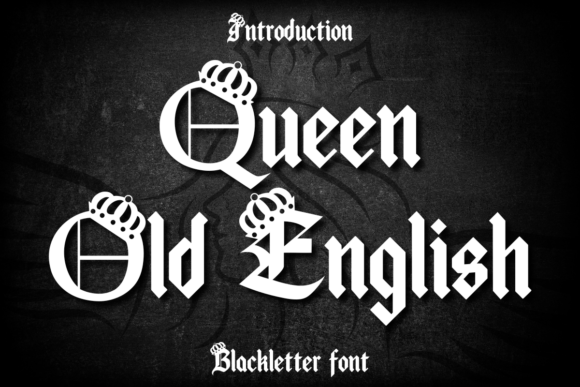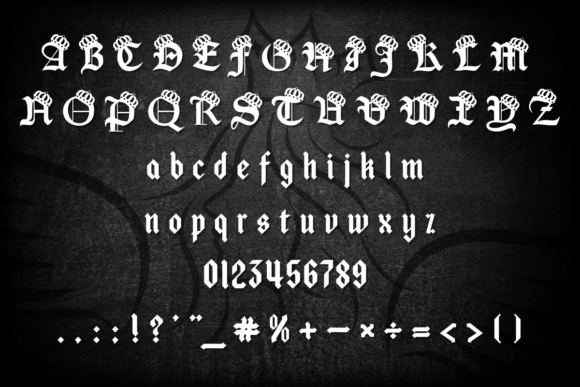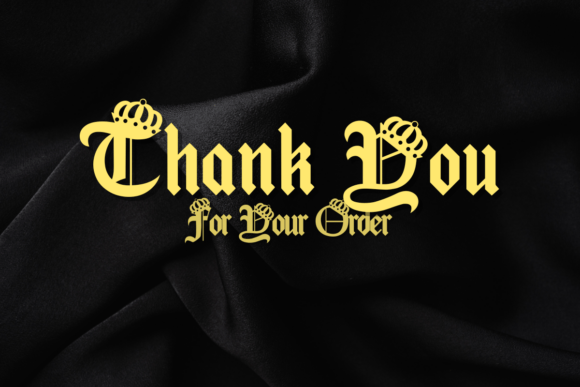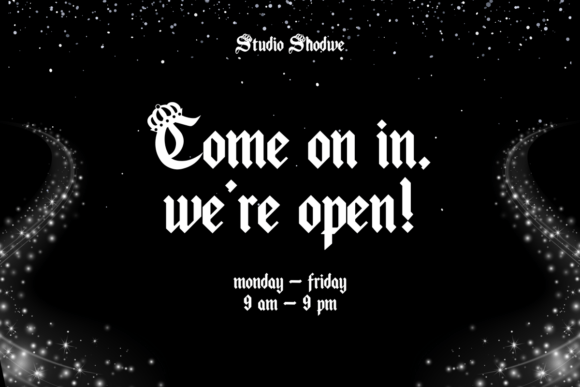
Queen Old English Font
About the Queen Old English Font
Let us introduce you to Queen Old English Font, where timeless design meets modern craftsmanship. Queen Old English is a regal blackletter font with a modern flair. Featuring bold, dramatic strokes and crowned letters, it commands attention with its vintage Gothic style. Perfect for luxury branding, fantasy themes, or royal-inspired logos, this typeface adds a touch of nobility to any design.
Queen Old English excels in headline treatments, short impactful phrases, and logo design where its bold presence makes a statement. It’s ideal for projects evoking luxury, heritage, or a touch of historical drama. However, its highly decorative nature makes it unsuitable for body text or UI elements requiring high readability. Avoid using it for lengthy passages; its intricate details can overwhelm and hinder comprehension.
The font’s strong personality—regal and assertive—pairs well with clean, modern sans-serif fonts like Helvetica or Open Sans for contrast. For a more traditional feel, consider pairing it with a classic serif such as Garamond or Didot. A script font like Playfair Display could add an extra layer of elegance to a design using Queen Old English.
The overall mood is authoritative yet sophisticated. Brands targeting a high-end clientele, historical societies, or those emphasizing craftsmanship will find Queen Old English particularly effective.
Queen Old English Font Example